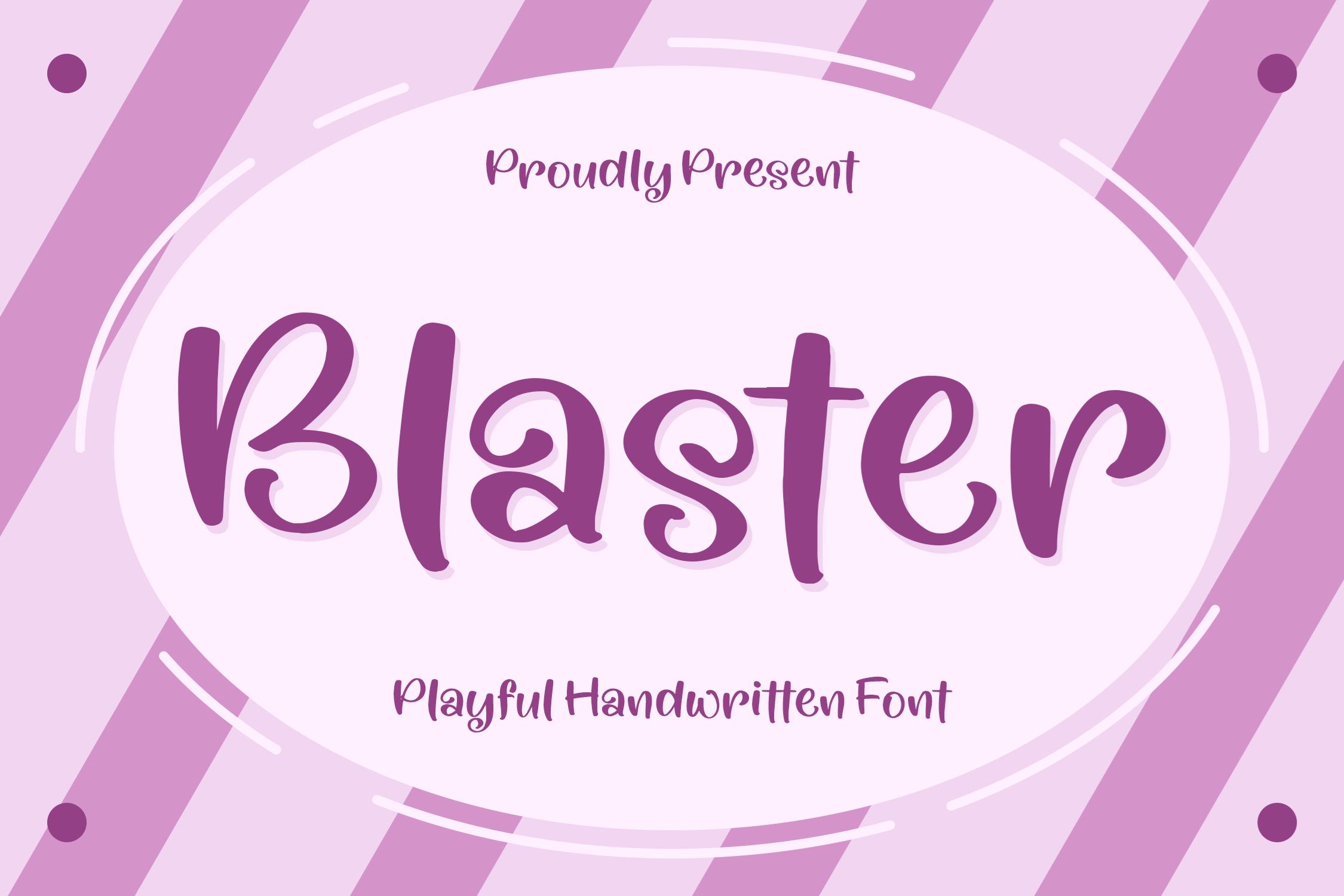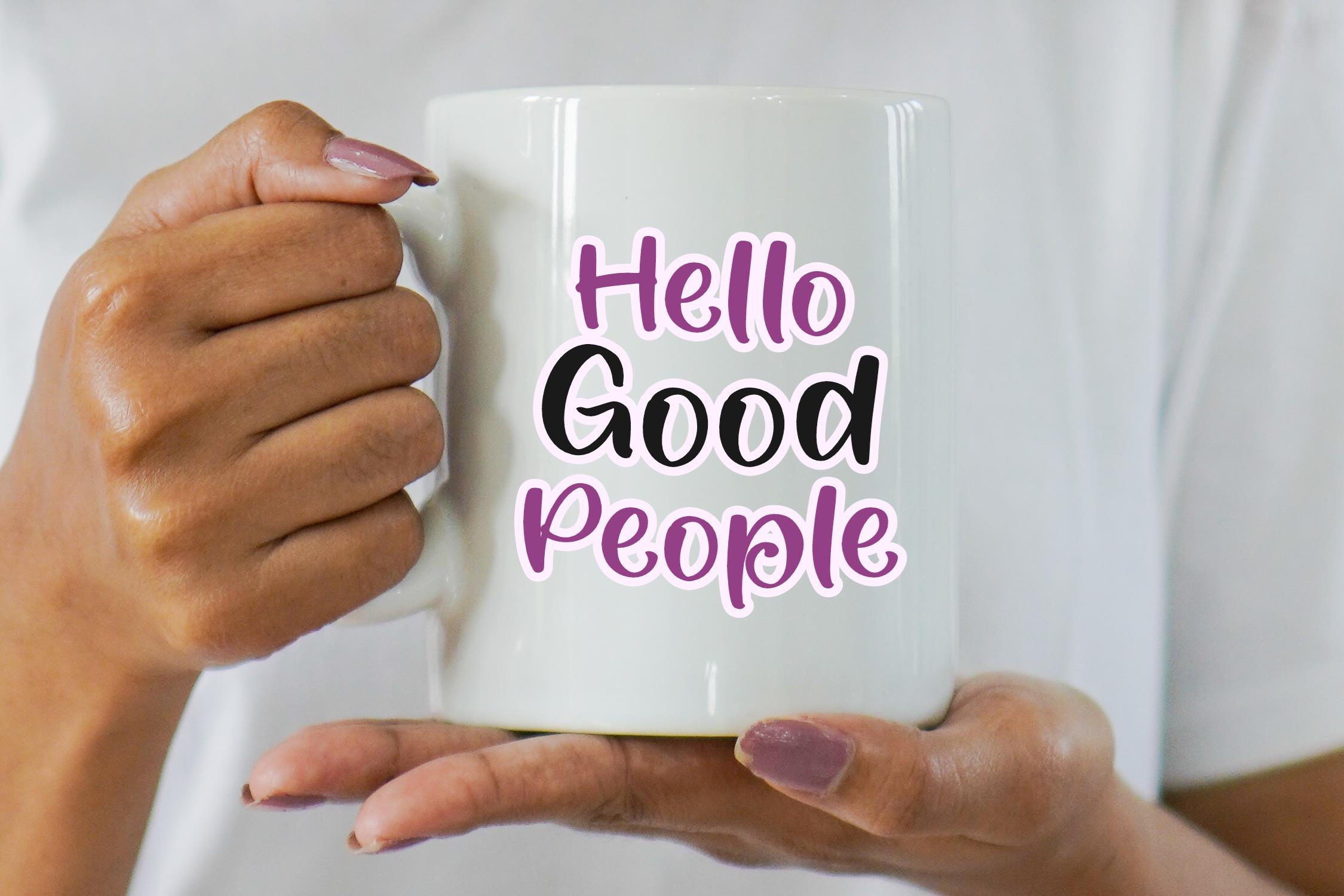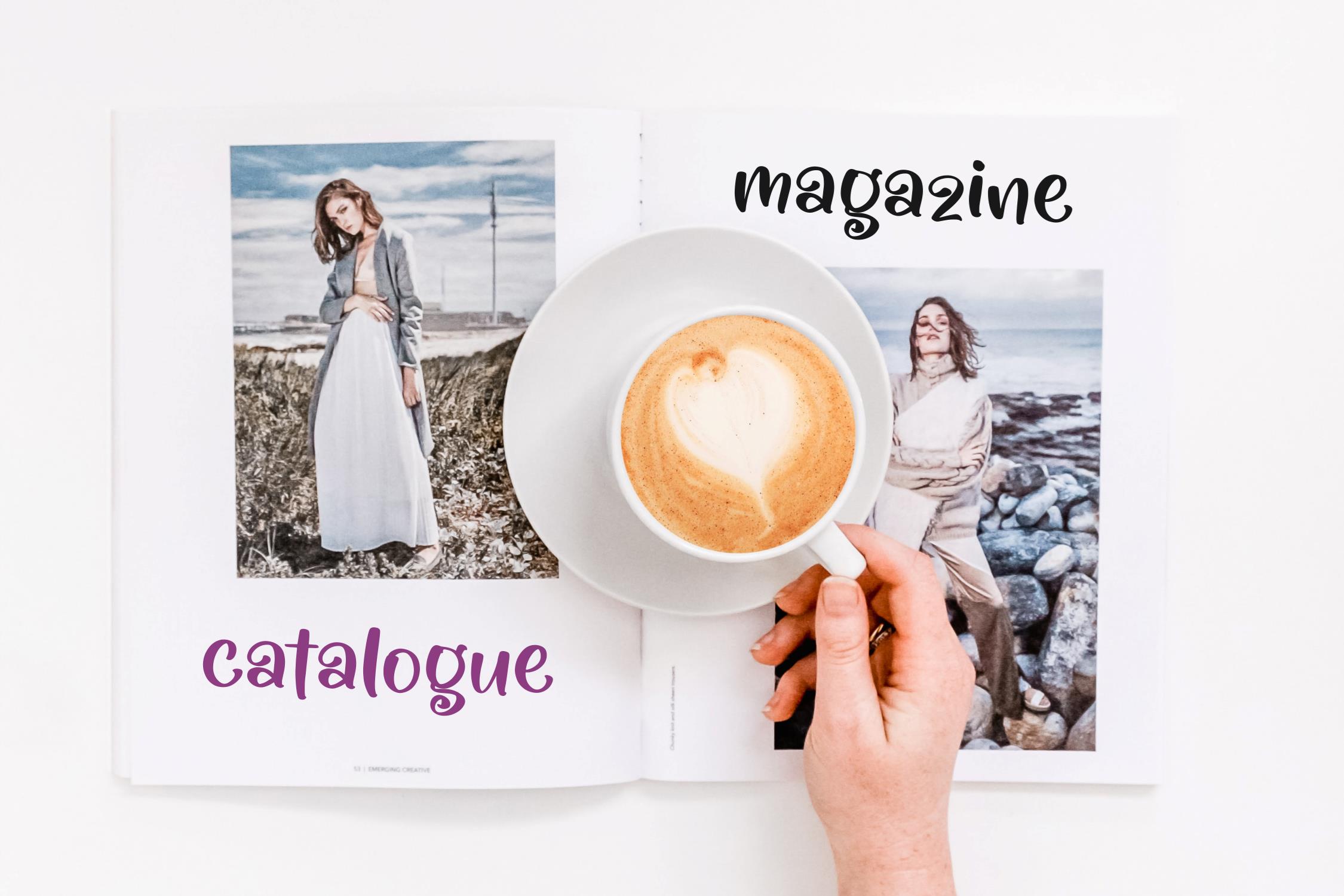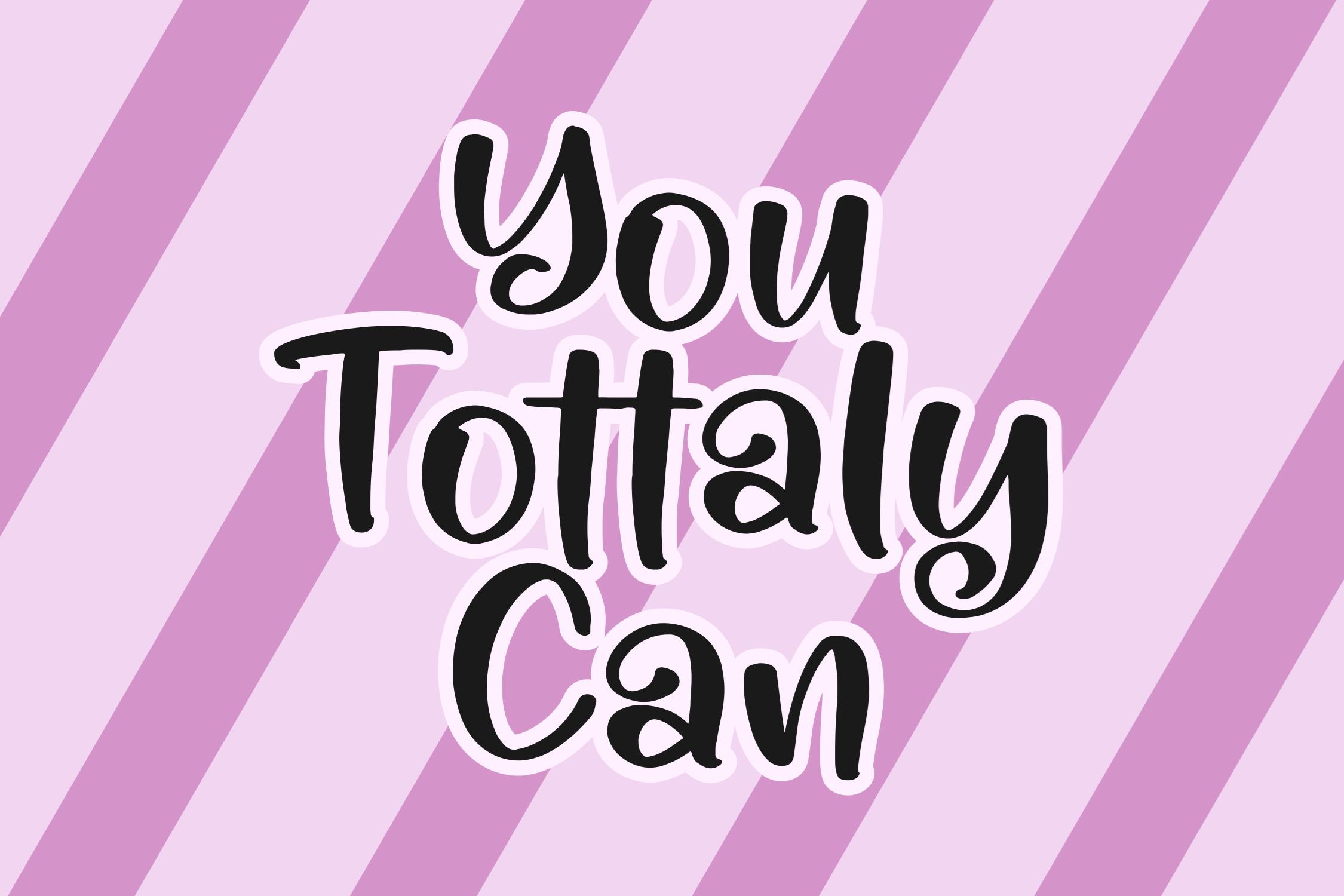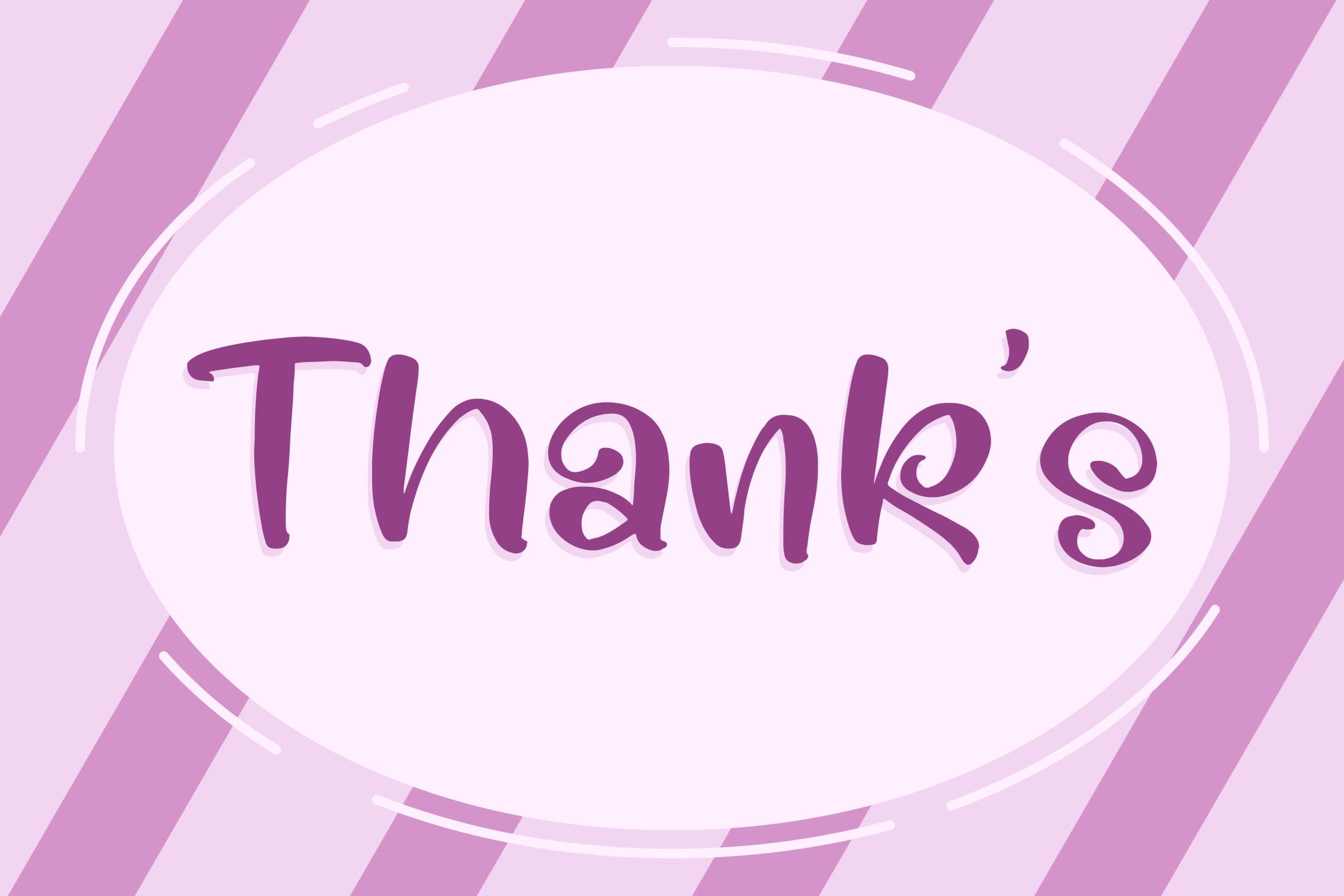
Blaster Free Font
Blaster Free Font is a bold and playful handwritten font that packs a punch. Its unique and dynamic strokes give it a lively and energetic feel, making it perfect for creating eye-catching headlines, posters, and social media graphics. With its playful and fun style, Blaster is sure to add some excitement to any design project. And the best part? It’s free for personal and commercial use, so let your imagination run wild with Blaster Free Font!